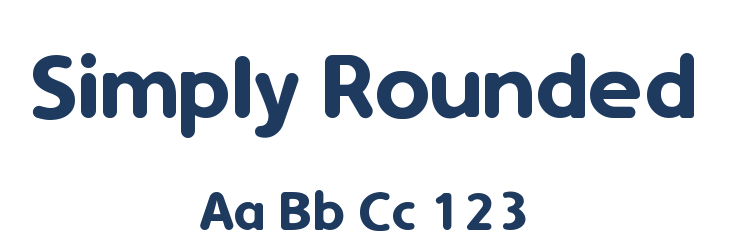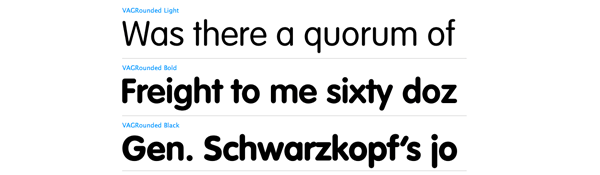
Font With Rounded Edges In Word
The text box will change into a box with rounded corners. Quincy cf by connary fagen. This font is suitable for clean and minimalist designs.
There Are Squares With Rounded Edges In Basic Shapes If That's What You Were After.
The Text Box Will Change Into A Box With Rounded Corners.
This Typeface Combines Casual And Formal.
Round Fonts Have Letters With Softer Edges Or Borders.
Santreil Sans Typeface Is A Single Opentype Font That Represent Clean, Minimalist And Modern Character With Smooth Rounded Edges Corner That Based On Perfect Circular Shapes.